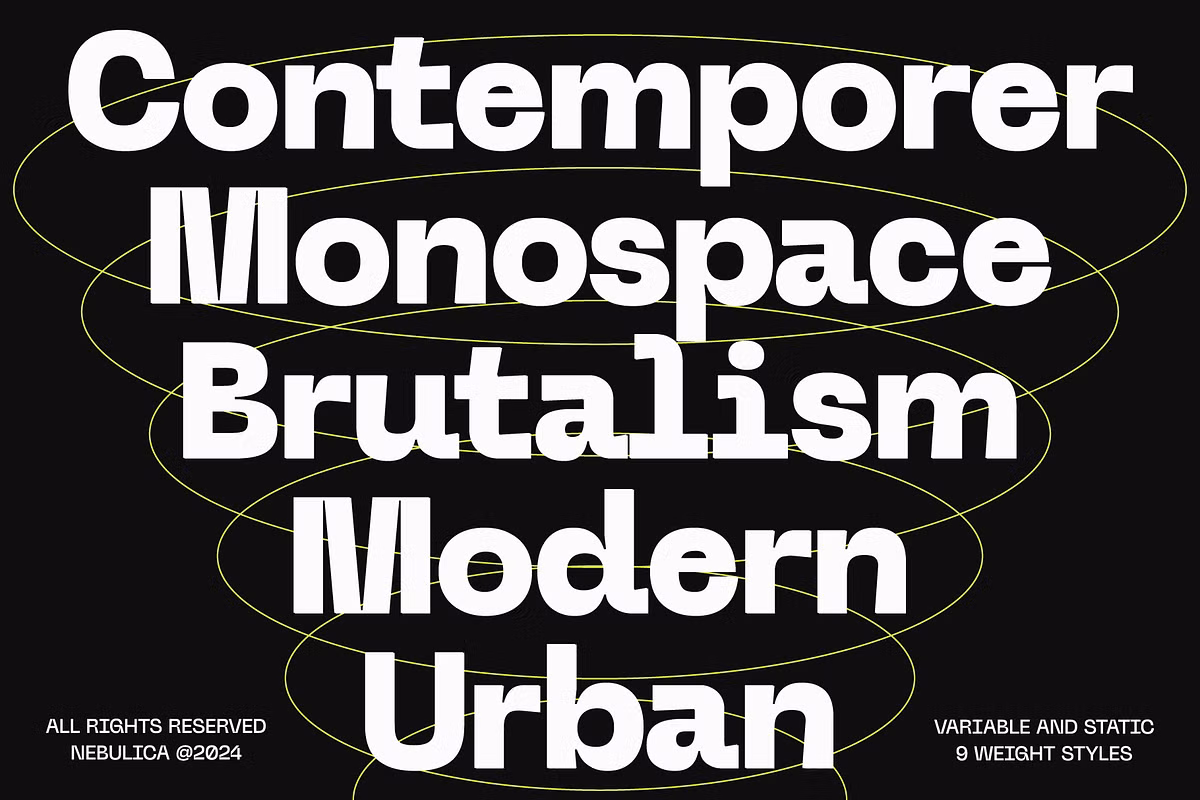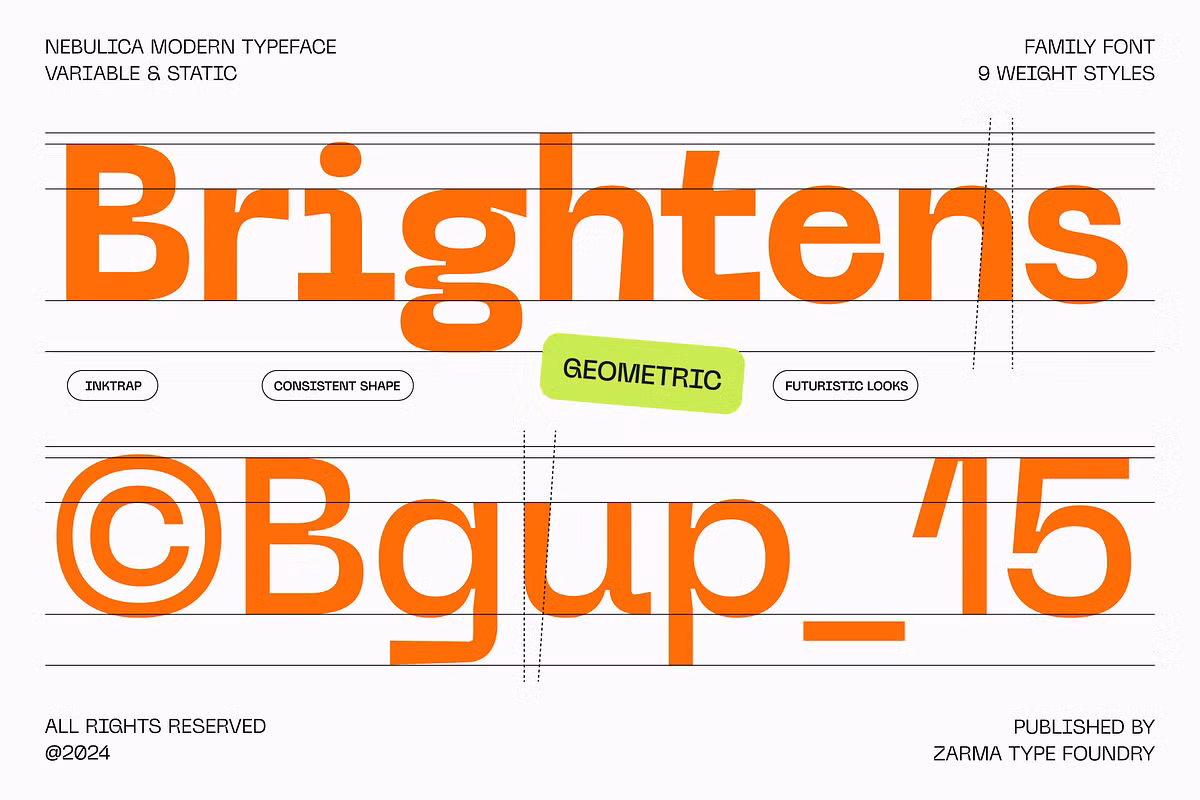
Nebulica: Modern Geometric Monospace Typeface for Design Projects
Nebulica is an experimental font that uniquely merges geometric shapes with monospace typeface elements, presenting a distinctly modern aesthetic that appeals to contemporary design sensibilities. This innovative typeface is crafted for designers who seek consistency, legibility, and a touch of sophistication in their projects.
Nebulica’s design style is really inspired by the way cities look and the style of modern buildings. It has clean lines and simple shapes, which makes it perfect for designs that are minimalist and look like they’re from the future. The little details like inktraps and slanted stems don’t just make the font look more interesting, but they also help people read it more easily. This means Nebulica works well in lots of different situations. Its modern look and feel make it a great choice for designs that need to look sleek and contemporary. Overall, Nebulica is a versatile font that can be used in many different ways, from creating sleek and modern designs to adding a touch of sophistication to more traditional layouts.
Nebulica has a really stylish look that grabs your attention. It works great for headings, regular text, or even design elements on screens. Its modern feel fits perfectly with technology-based settings, making it a top choice for digital uses.
This typeface captures the essence of modernity, blending artistic design with functional typography. The geometric influences are balanced by the monospace characteristics, giving designers freedom to utilize Nebulica in diverse applications without sacrificing style or clarity.
Character Sets
Nebulica has a huge collection of characters – we’re talking over 435 glyphs. This includes all the usual stuff like uppercase and lowercase letters, numbers, and punctuation, as well as some extra goodies like arrows and symbols. With so many characters to choose from, Nebulica is perfect for design projects that need to support multiple languages – it can handle over 88 languages, which is pretty impressive. This makes it a great choice for anyone working on a project that needs to reach a global audience. Whether you’re designing a website, a brochure, or something else entirely, Nebulica’s got you covered with its extensive character set.
Nebulica also includes ligatures and special characters that make it more flexible. This means designers can use these features to create unique and eye-catching text combinations that are still easy to read and interesting to look at. By using these special characters, designers can add an extra layer of creativity to their work, making their text stand out in a crowded space.
Global Reach
The ligatures and special characters in Nebulica give designers the freedom to experiment with different typographic styles, creating a visually appealing effect that enhances the overall reading experience. The extended Latin support allows for a broader application across different languages and cultures, making Nebulica a truly global typeface. This versatility is essential for designers working in international markets or creating content meant for diverse audiences.
Nebulica is an exemplary choice for a variety of design projects, particularly those that emphasize a futuristic, minimalist, or technology-focused aesthetic. Here are some specific use cases where Nebulica shines:
- Web Design: Its clean lines and modern look make Nebulica perfect for websites, providing a fresh and contemporary feel that engages users.
- User Interfaces: Nebulica is great for designing user interfaces because it’s really easy to read, making it perfect for buttons and menus.
- Branding Projects: The unique characteristics of Nebulica can help brands establish a modern identity, making it a fitting choice for logos and marketing materials.
Using Nebulica in your design work does a lot more than just make things look good – it also helps keep your text easy to read and understand, no matter where it’s being used.
When it comes to pairing Nebulica with other typefaces, the key is to find complementary styles that enhance its modern and geometric characteristics. Here are some pairing suggestions:
- Serif Typefaces: Pair Nebulica with a classic serif font like Georgia or Times New Roman for a striking contrast between modernity and tradition.
- Sans-serif Fonts: Combine Nebulica with a clean sans-serif typeface such as Helvetica or Open Sans for a cohesive and contemporary look.
- Display Fonts: For headlines, you can use a bold display font like Bebas Neue alongside Nebulica to create a dynamic visual hierarchy.
Experimenting with these pairings can yield impressive results, allowing you to craft designs that are not only functional but also visually stunning.
Nebulica is available in a variable font format, providing designers with numerous options to customize the type’s appearance to fit their specific needs. This flexibility is a significant advantage for those looking to create unique typographic styles without having to rely on multiple font files.